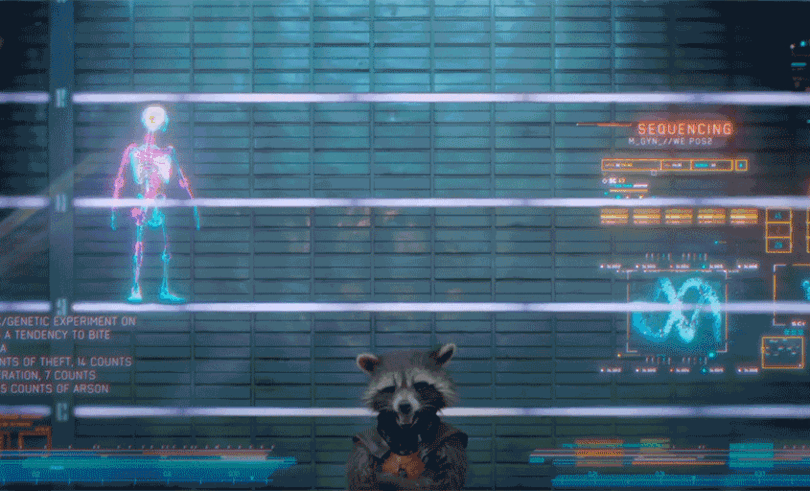
3D and Beyond: Monotype Fonts at Territory Studio.
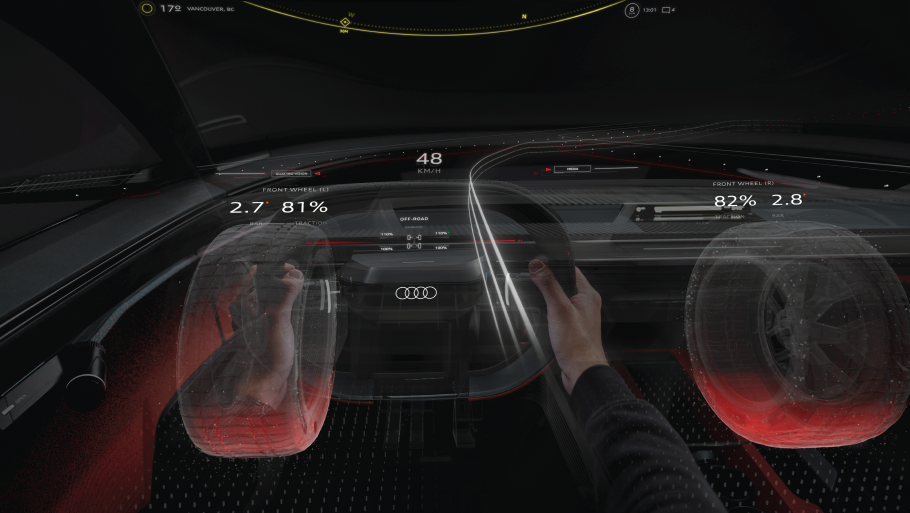
Jake Yem, UI designer.
Territory Studio is no stranger to pushing the boundaries of creativity. Driven by a passion for creative innovation, Territory’s San Francisco-based location is busy creating dazzling design work that is showcased across film, games, automotive, and digital products.
The studio’s award-winning motion design is featured on the monitors, visors, and HUDs of films such as “Ad Astra,” “The Martian,” “Avengers” franchise, “Ready Player One,” and “Blade Runner 2049.” The studio is also recognized for creating immersive AR/VR experiences that are grounded in reality, working at the forefront of tech and design in the branding, gaming, and automotive sectors.
As any creative agency knows, working on multiple brands with distinct personalities requires meticulous management of brand assets and files – especially font files. This can be a monumental challenge, and one that Jake Yem, UI designer at Territory’s San Francisco office, has experienced firsthand.
Dubbed “the font maestro,” Yem fell in love with typography in his college days, and now works with fonts every day. Whether designing a car’s dashboard interface or creating an AR storytelling experience, Yem’s work starts in the 2D space before being translated into the 3D world.
We spoke to Yem about using Monotype Fonts and how it has really made a difference to his creative workflow.
Design Alchemy: From Chaos to Order.
Let’s get right to it: what was it like before using Monotype Fonts?
“It was kind of a mess,” Yem explains, noting how time is short for designers and art directors working on tight deadlines.
“You’d scour through sketchy websites full of terribly designed type, all the while trying to find that one creative gem. As designers, we don’t always have much time to dig deep for a new, exciting typeface so rely on inspiration from the community – or sometimes fall back on safe and familiar options. As you can imagine this isn’t necessarily ideal for creating the right look to future-proof a brand’s identity.”
With Monotype Fonts, however, an extensive font search can be handled in one single, focused step. Designers have immediate access to over 150,000 curated fonts, all sourced from independent studios and world-renowned designers… and the database is always growing.
“Having this kind of endless repository of notable type foundries is definitely a natural fit for us,” adds Yem.
Whether minimal futuristic sans-serif or bold and classic serif, designers can easily locate what they need in a heartbeat, able to sort through fonts before bringing them into customized lists for easy reference.
This is especially useful for Yem when filtering fonts suitable for AR projects, a challenge because low contrast type, thin stems, ligatures, descenders, and features of that nature don’t necessarily translate well within these new, rapidly evolving mediums.
Mastering the Details.
In terms of everyday usage, Yem explains that Monotype Fonts has saved him time and effort by keeping workflows running smoothly across projects:
“Every team member with Monotype Fonts can access the right font without delay,” he explains, “There are no more delays from team members sending font files over, hoping they don’t crash or break.”
For times that font files do need to be sent (in Yem’s case, to development teams for 3D design) Yem notes the importance of downloading font files in the first place. “This is important because we work with high-profile automotive companies integrating real-time 3D tools directly into their products,” he explains.
Another benefit of having one central font management system is eliminating the dilemma many creative teams face: fonts on a server that no one can access.
“In the past, Territory’s team has been rather small, at least in San Francisco, which allowed for a more lax approach,” he reveals. “But as the studio began to grow it suddenly became a rat’s nest… and now that’s all gone.”
Yem notes another powerful reason for Territory Studio to use Monotype: Client pitches. The simple fact of knowing which foundry the font came from adds another layer of credibility that gets client buy-in.
“This, matched with Monotype Font’s simple approach to licensing, keeps projects moving forward,” he insists.
Not only is this transparent; but it’s also a validation factor. One that often cuts out two or three rounds of type explorations. As Yem puts it, “We’re searching once, then doing creative iterations. And, from there, we’re presenting to the client and they’re gaining that confidence.”
For clients, it may be confidence – but for Yem and the team at Territory Studio, it’s empowering.
Top Font Picks.
Discussing his favorite fonts, Yem’s list of desert-island hits would be Forza, Beastly, and 56th Street. Coming soon, he’d love to see sharable font collections from fellow designers and art directors.